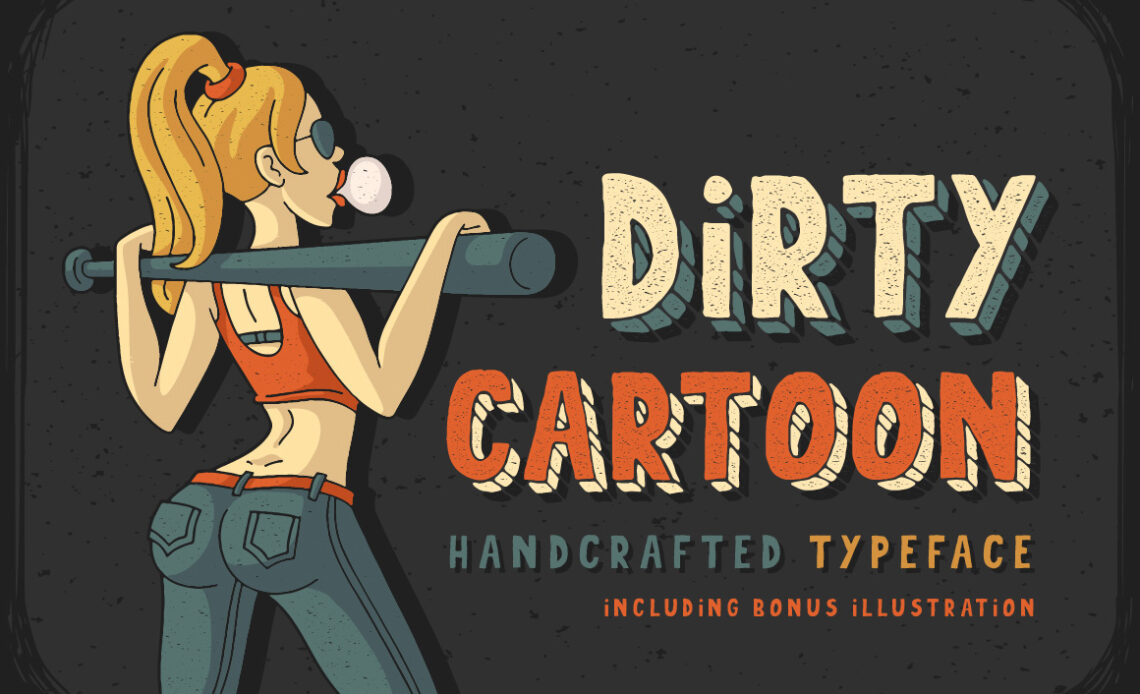
Welcome to the world of Dirty Cartoon Fonts, a hand-crafted collection of four unique display fonts that will add a touch of whimsy and fun to your designs.
Unleash your creativity and dive into a universe where cartoonish charm meets typographical excellence. Each font in this family boasts its own distinct personality, perfectly suited for a variety of projects, from playful logos and eye-catching headlines to quirky invitations and captivating social media posts.
With Dirty Cartoon Fonts, you can transform your words into captivating works of art. Let your imagination run wild as you explore the possibilities, from whimsical illustrations and vibrant posters to enchanting children's books and captivating animations. The possibilities are endless, bound only by the limits of your imagination.
**Dirty Cartoon Bold:** This font exudes boldness and confidence, making it the perfect choice for creating impactful headlines and attention-grabbing posters. Its thick, solid lines and playful curves add a touch of energy and excitement to any design.
**Dirty Cartoon Italic:** With its elegant slant and playful charm, Dirty Cartoon Italic adds a touch of sophistication to your designs. Its graceful lines and flowing curves evoke a sense of movement and energy, making it ideal for dynamic logos, vibrant flyers, and captivating social media posts.
**Dirty Cartoon Outline:** This font's playful and lighthearted outline style adds a touch of fun and whimsy to your creations. Its airy and delicate lines create a sense of lightness and movement, making it perfect for playful illustrations, quirky packaging designs, and eye-catching invitations.
**Dirty Cartoon Rough:** Embrace the beauty of imperfection with Dirty Cartoon Rough, a font that celebrates the charm of hand-drawn lettering. Its rough edges and uneven lines add a sense of authenticity and personality to your designs, making it ideal for creating grunge-inspired logos, edgy posters, and captivating street art-inspired graphics.